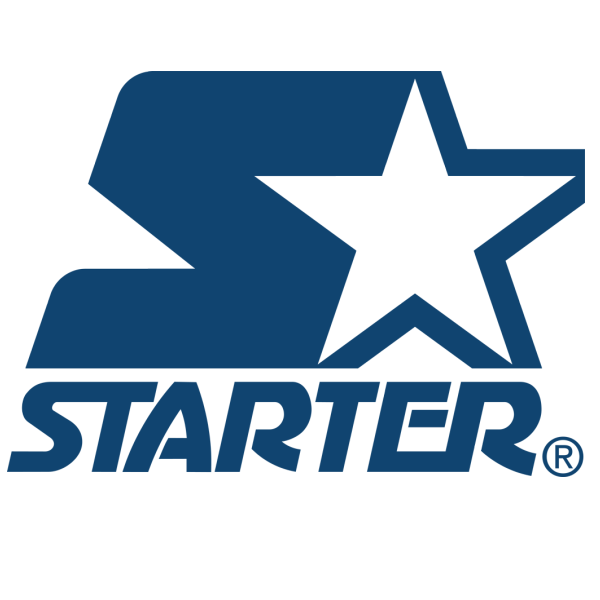
Starter Font
ApparelStarter is a sports apparel brand that was founded in 1971 in New Haven, Connecticut. The brand is known for producing high-quality athletic wear and became popular for its partnerships with professional sports leagues and teams, including the NFL, NBA, and NHL.
Starter's logo features a decorative sans serif called Adver Gothic designed at ParaType in 1989. It is influenced by Art Nouveau's lettering and based on Robert Wiebking's Advertisers Gothic.